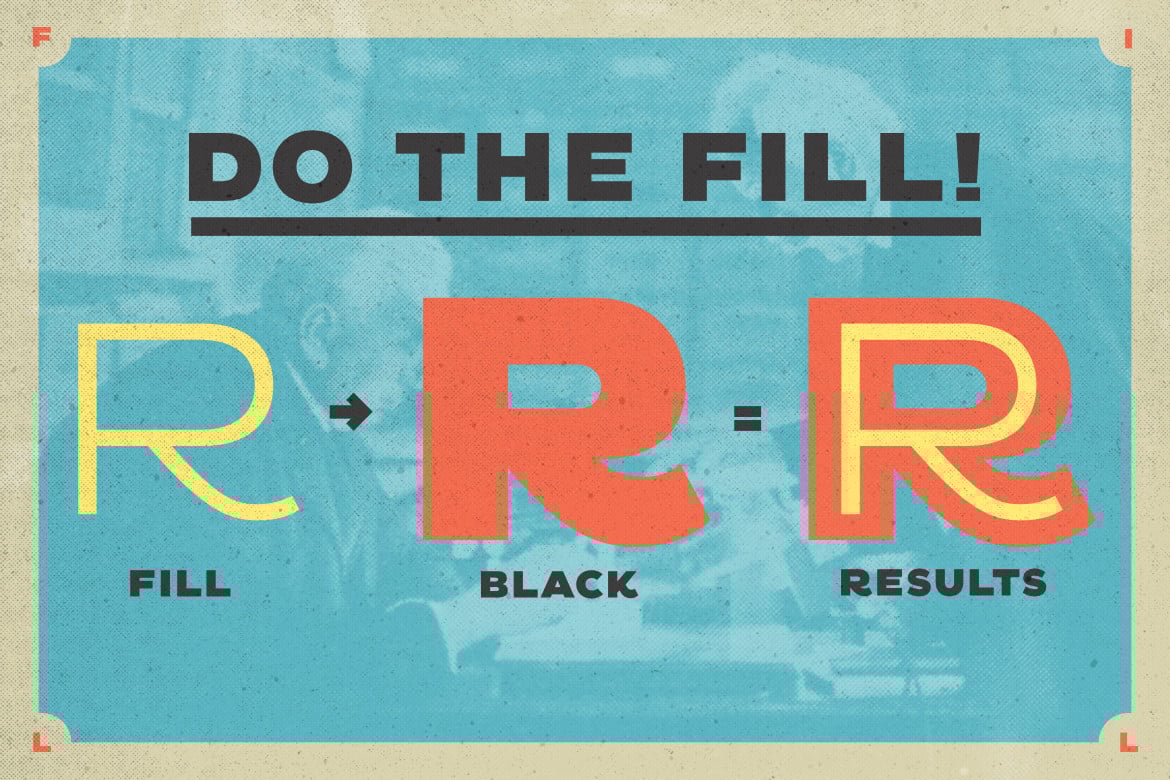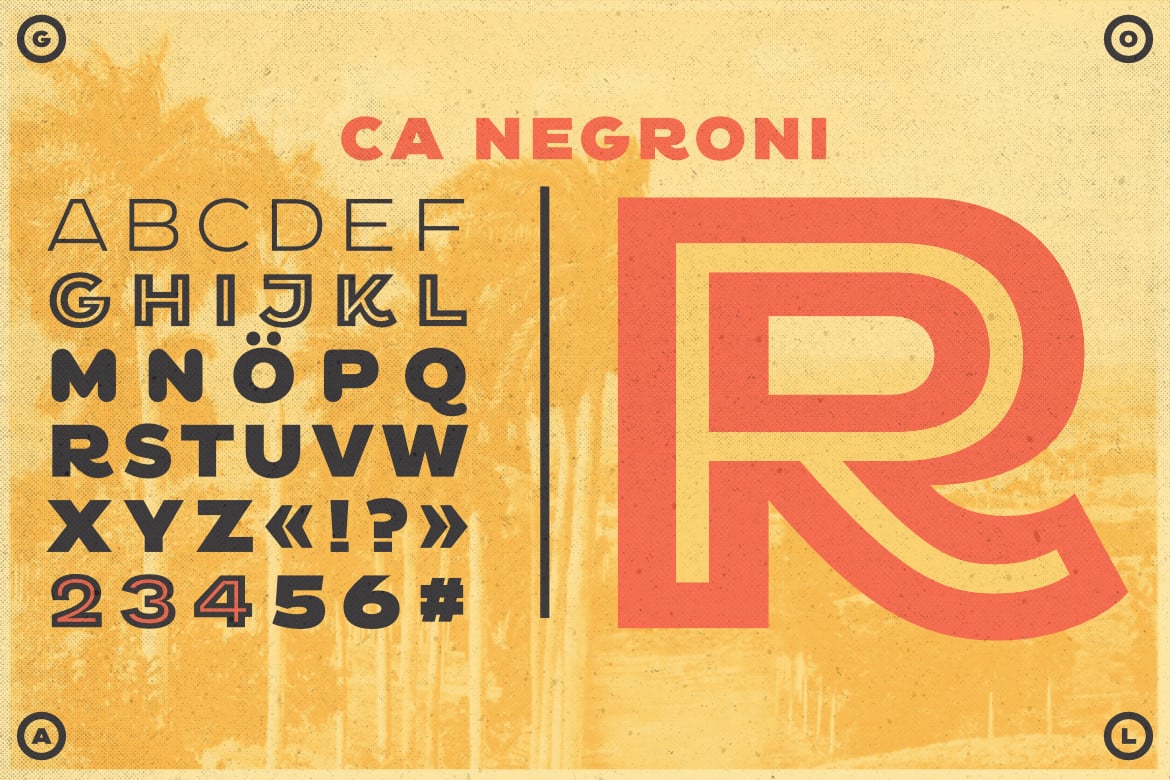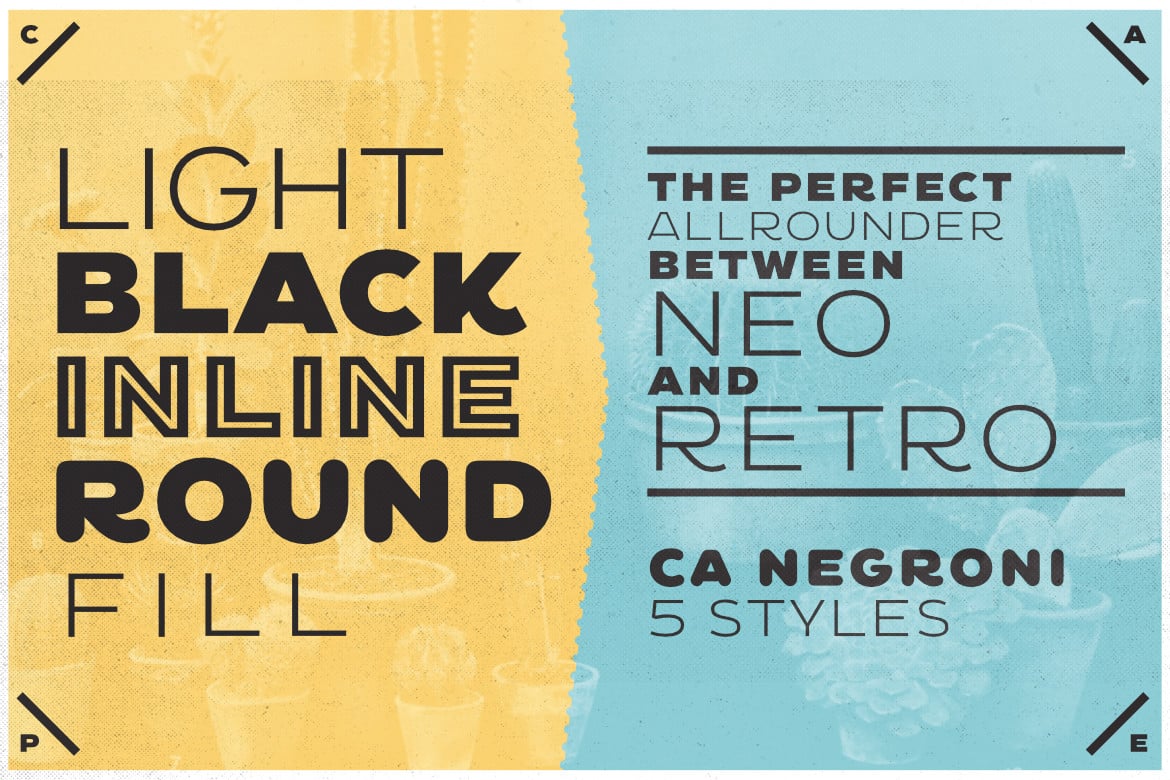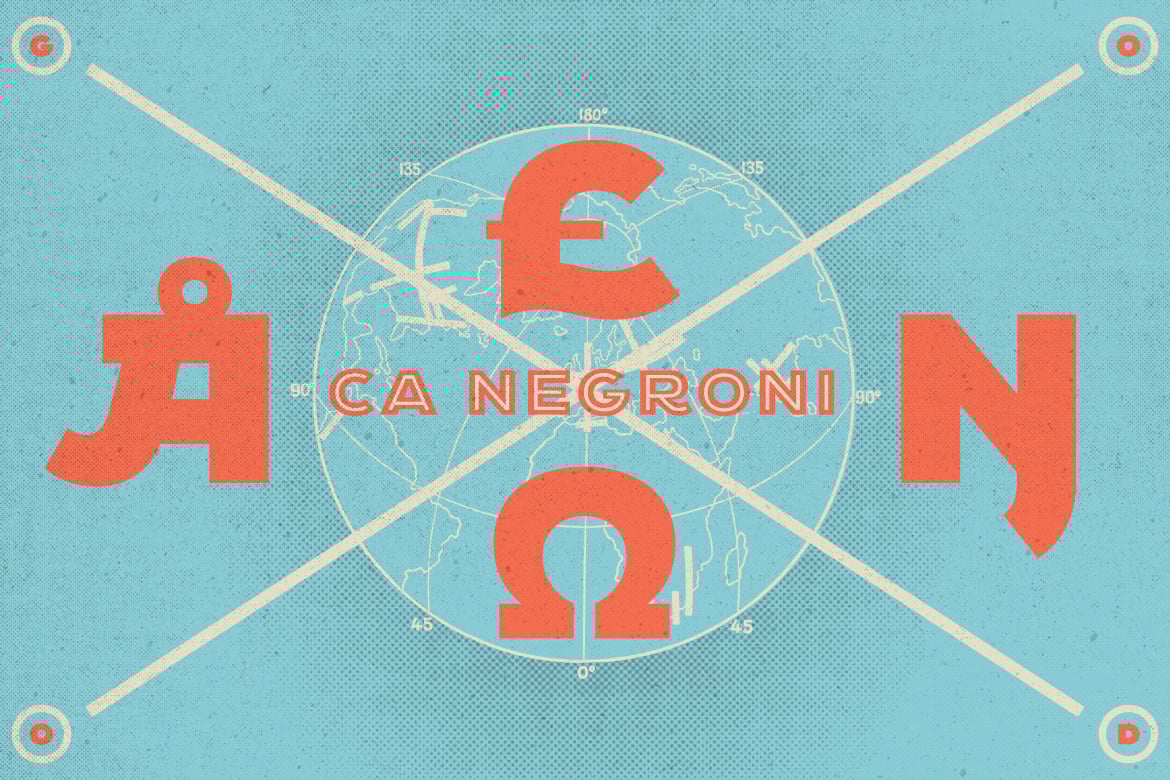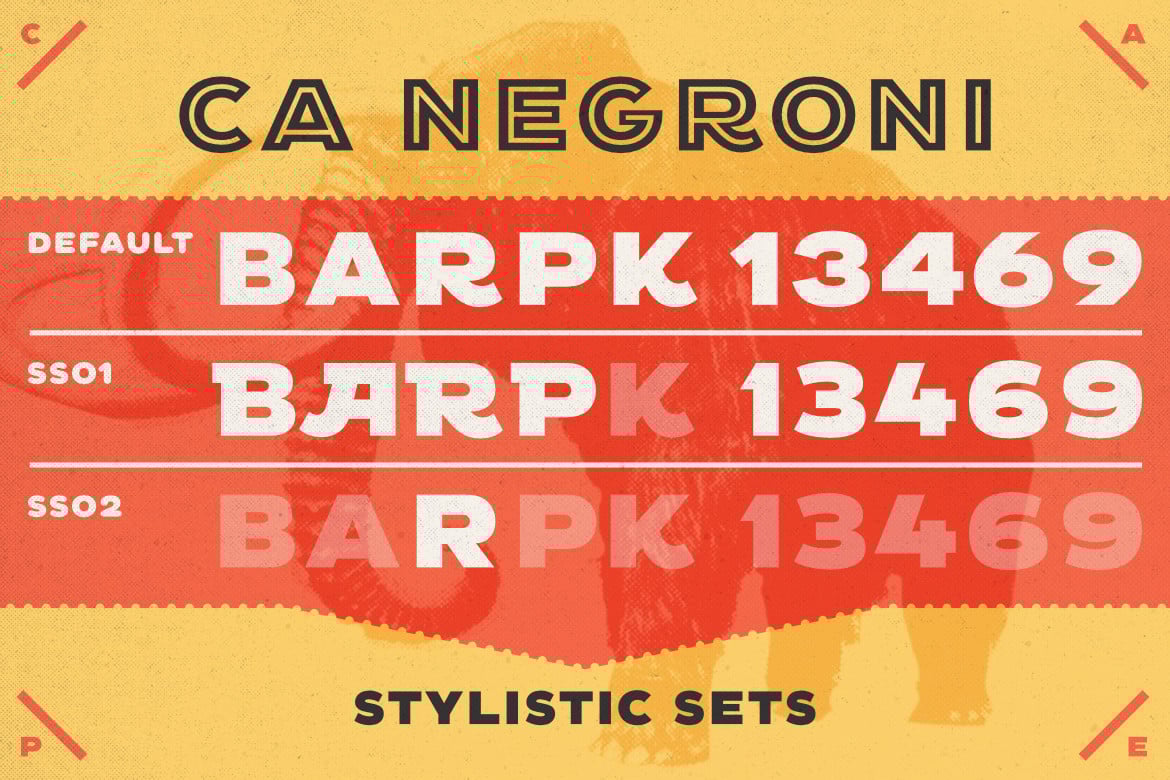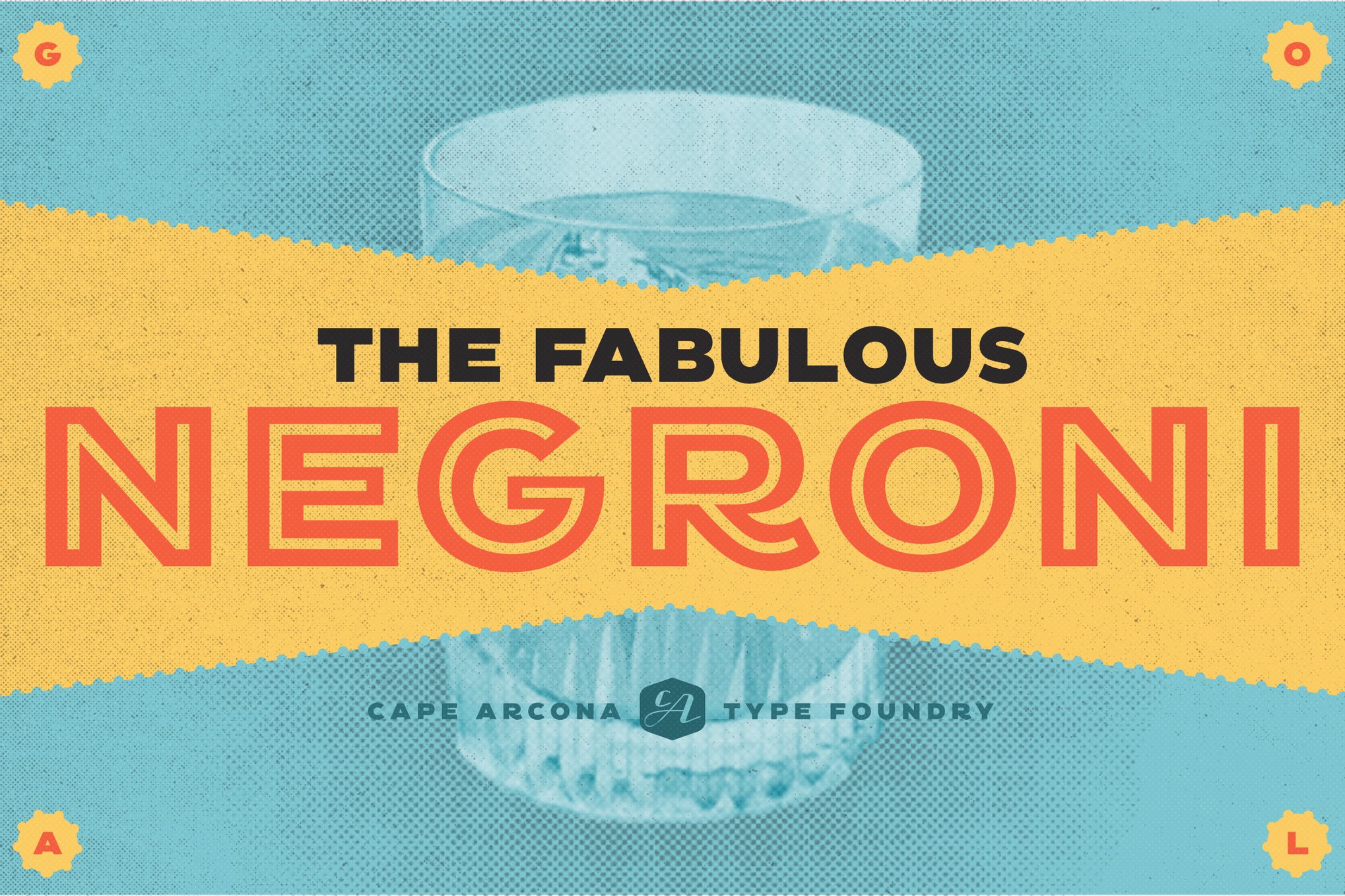
CA Negroni Font
CA Negroni Font is perfect for branding projects, logo designs, packaging, posters, editorial layouts, and digital advertisements. It works beautifully in both print and web environments, making it a versatile choice for designers across different industries.
What makes CA Negroni Font exciting is its playful yet sophisticated design. The letterforms have a unique charm, combining retro influences with a modern twist, making your text stand out without overwhelming the reader. It’s a font that draws attention while maintaining readability, which is perfect for professional and creative projects alike.
The CA Negroni Font family includes several styles such as Regular, Bold, Italic, and Inline, giving you flexibility for different design contexts. Whether you need a headline that pops or body text that feels friendly and approachable, this font family has you covered.